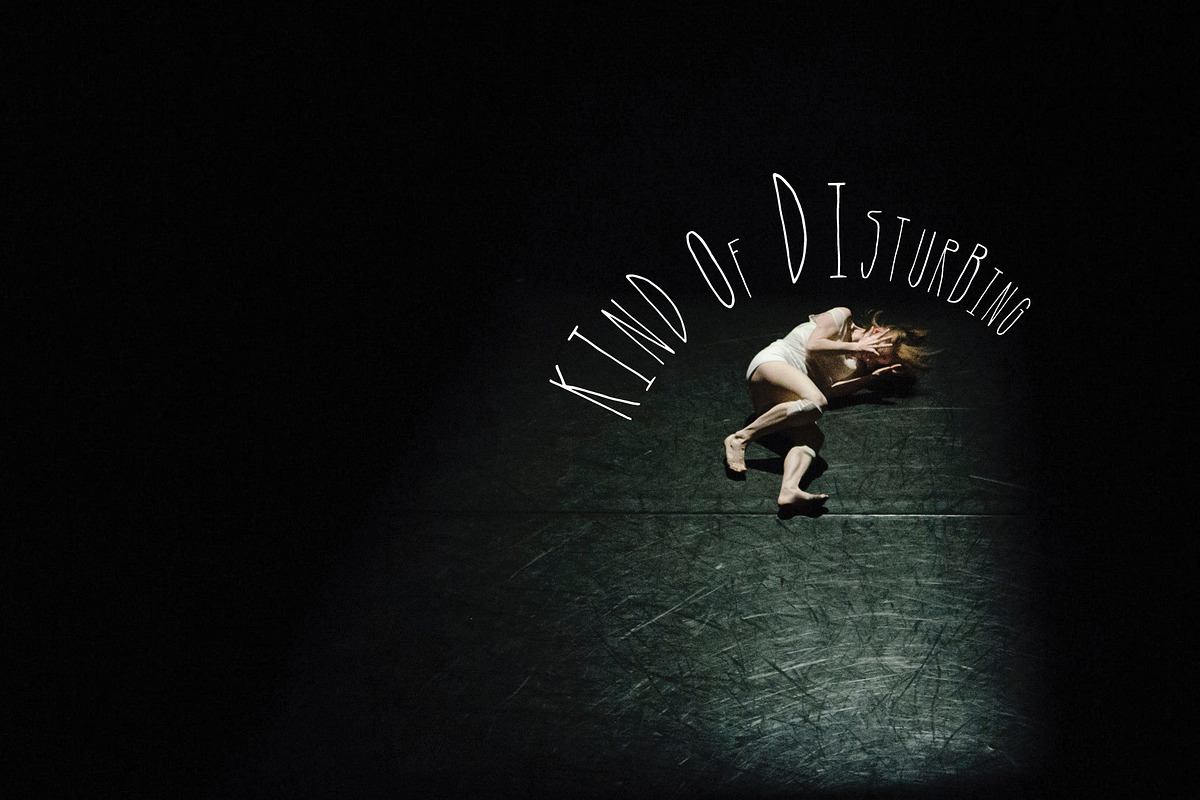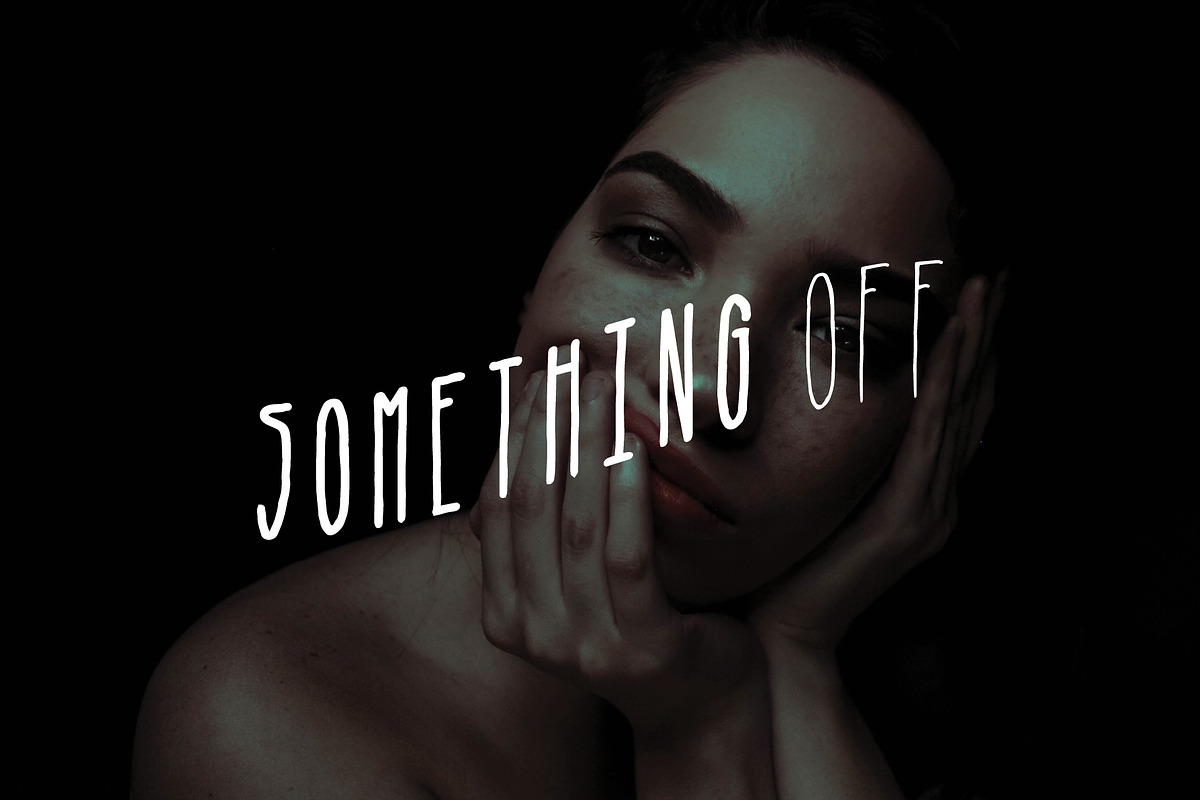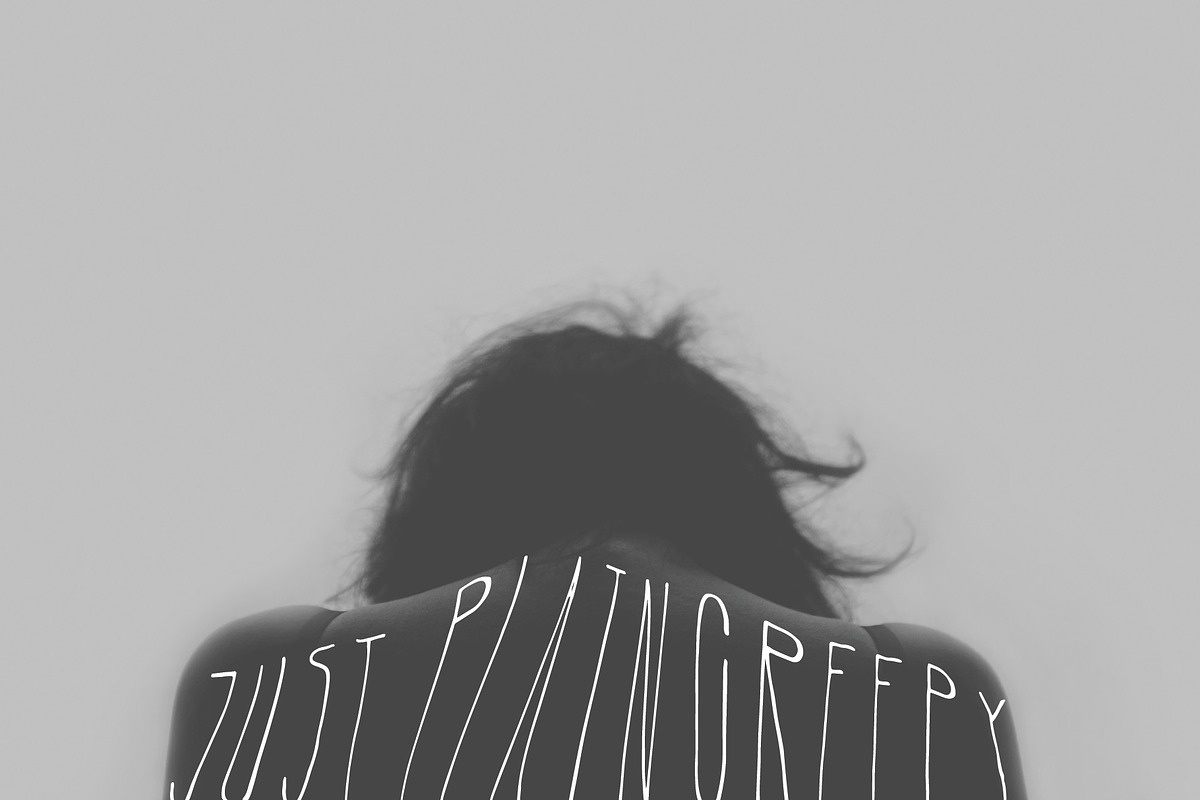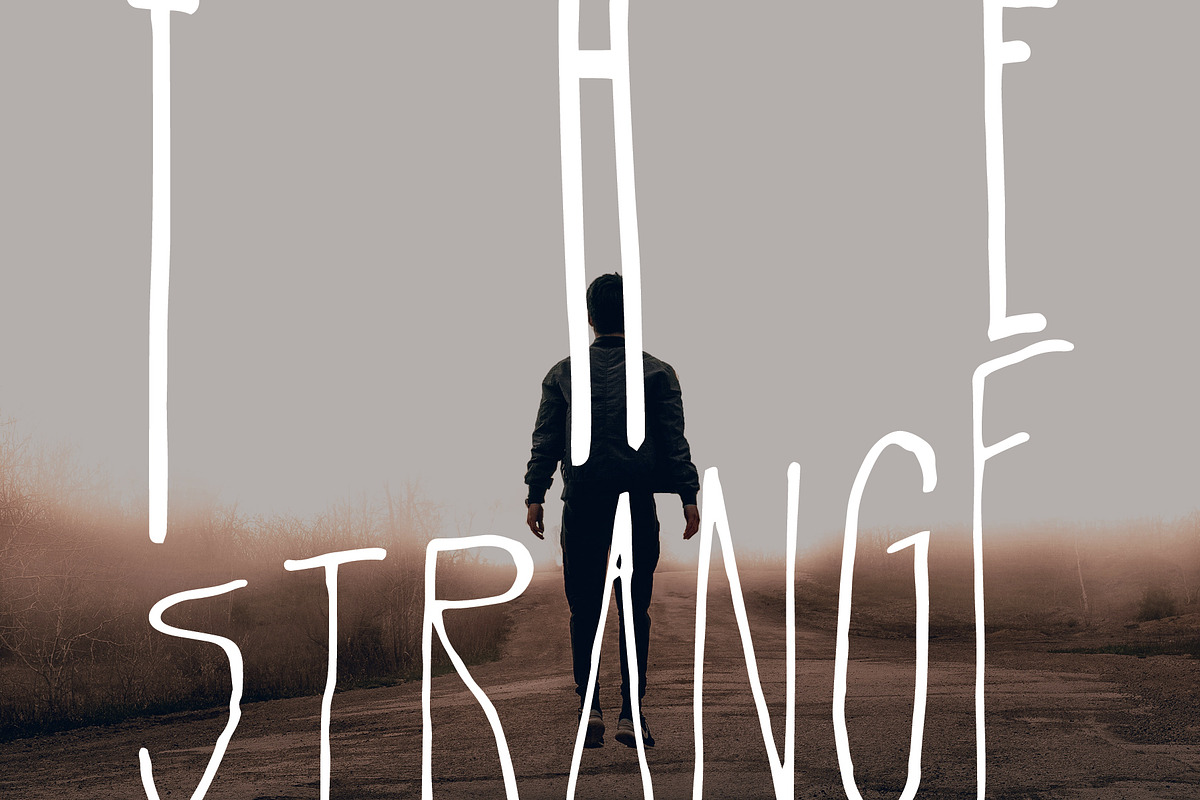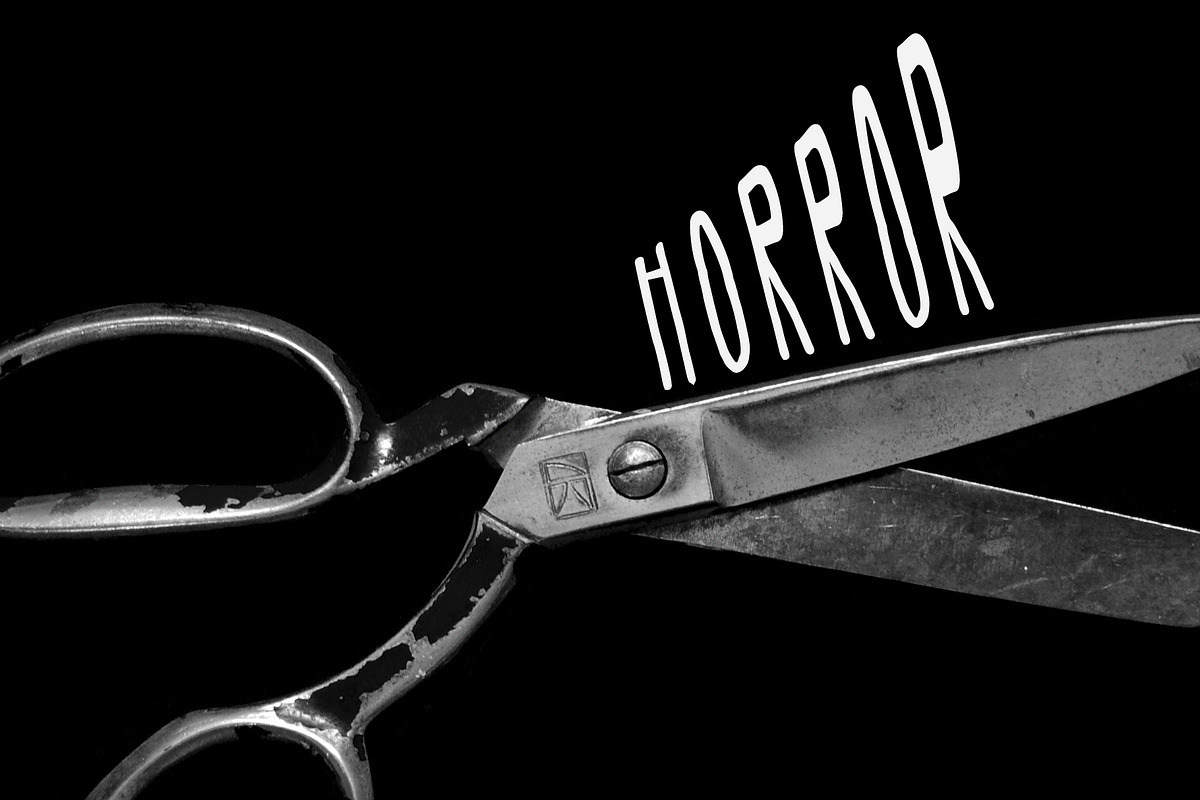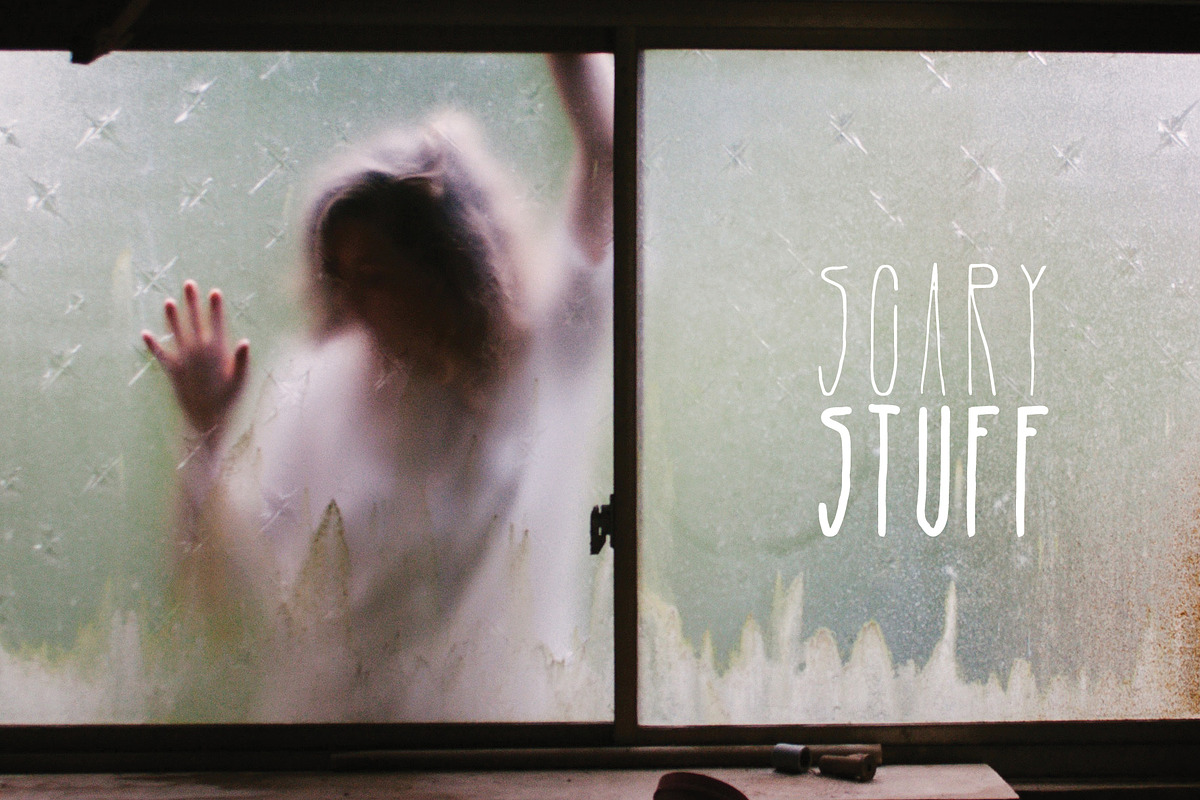
Slender
Slender is a display font. The tall, slender, and hand drawn lines give this font a creepy feel. Good for anything needing a touch of scary, strange and the disturbing. Awesome for horror imagery. Slender is a great font for warping and stretching.
1. Slender Regular comes in all caps with letters, numbers, punctuation and symbols.
2. Slender Bold comes in all caps with letters, numbers, punctuation and symbols.